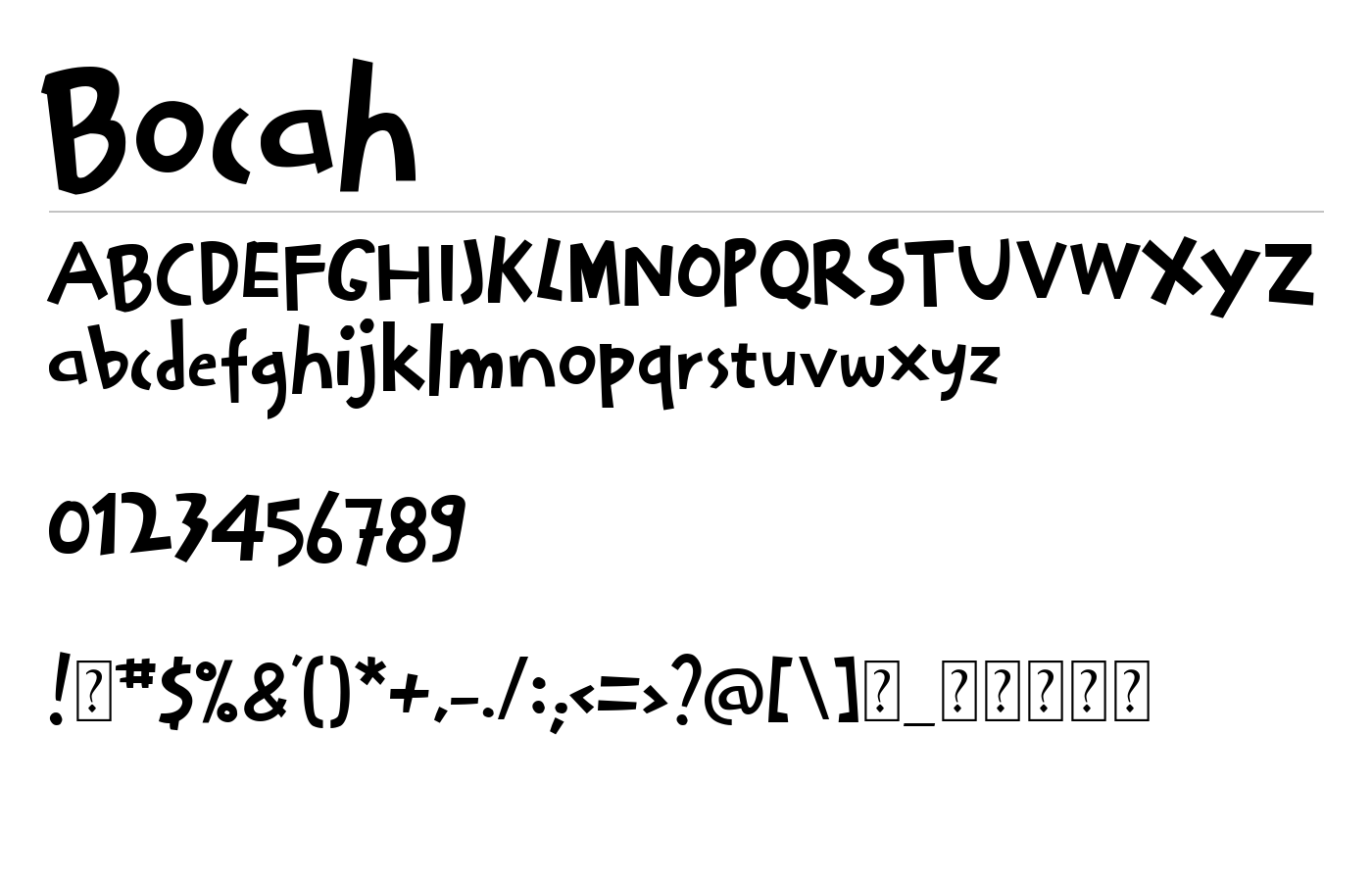
Bocah Font is a playful and casual sans serif typeface with irregular, hand-drawn letterforms that give it a lively and friendly character. Its uneven strokes and quirky shapes make it ideal for informal branding, children’s materials, and creative projects where a fun and approachable look is desired. This font works well for headlines, logos, and posters that need a unique, energetic vibe.
Bocah Font